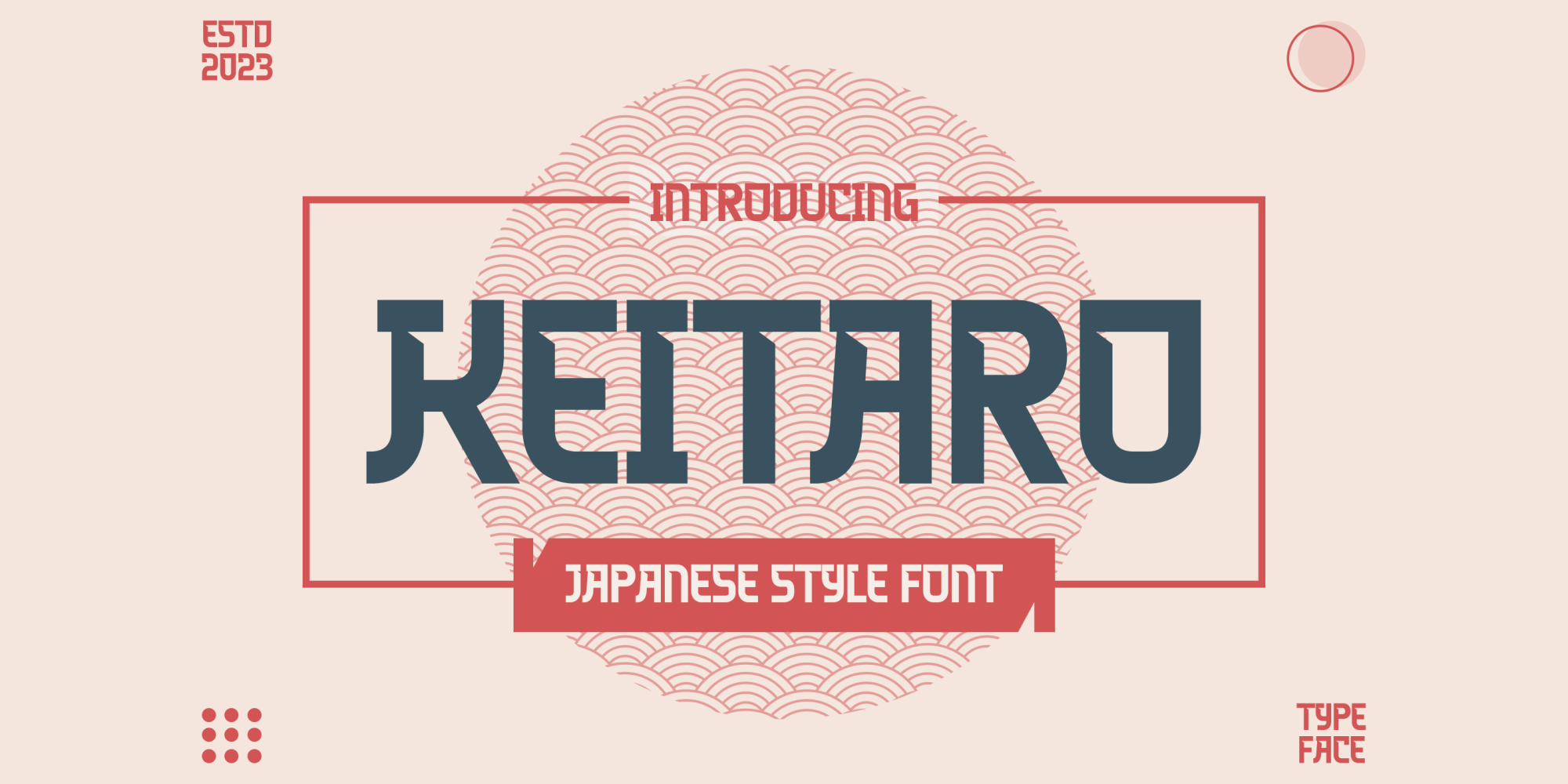
Keitaro Font is perfect for Japanese restaurant branding, anime convention graphics, martial arts academy signage, zen meditation centers, traditional tea ceremony materials, sushi bar menus, cultural exchange programs, manga publishing projects, Asian fusion cuisine marketing, and any harmonious project that celebrates the elegant balance and timeless wisdom of Japanese aesthetic philosophy and cultural tradition.
What makes Keitaro Font exciting is its serene balance that captures the refined elegance of Japanese design principles and the mindful precision of traditional Japanese craftsmanship. This typeface embodies the essence of Japanese aesthetics with clean letterforms that suggest the careful brushstrokes of calligraphy and the peaceful harmony found in zen gardens. The font's balanced character makes it perfect for brands and projects that want to communicate mindfulness, quality, and the sophisticated simplicity that defines Japanese cultural excellence.
The Keitaro Font family includes multiple weights and stylistic variations, featuring light, regular, and bold versions along with decorative elements and alternate characters inspired by Japanese calligraphy and traditional design motifs. This comprehensive collection allows designers to create culturally respectful typography that maintains the font's signature harmonious character while providing flexibility for various Japanese-inspired and mindful design applications.
When exploring authentic Japanese-inspired typography, Keitaro Font Free Download offers designers an exceptional opportunity to work with a typeface that genuinely captures the spirit of Japanese aesthetic philosophy and cultural refinement. This font demonstrates innovative design thinking by incorporating the principles of balance and simplicity that define both traditional Japanese design and the contemporary appreciation for mindful living and quality craftsmanship.
Professional designers appreciate Keitaro Font for its ability to instantly communicate cultural sophistication and mindful quality across various Japanese and wellness-focused platforms. The font's harmonious character makes it particularly effective for Japanese restaurants, wellness brands, and cultural organizations seeking to establish authentic connections with audiences who appreciate Japanese culture and mindful lifestyle choices.
The timeless appeal of Keitaro Font lies in its perfect representation of Japanese aesthetic principles and mindful simplicity that continues to influence contemporary design and lifestyle trends worldwide. This typeface serves as a bridge between traditional Japanese culture and modern appreciation for balance, quality, and mindful living.
For creative professionals working with Japanese-inspired and wellness brands, Keitaro Font represents the ultimate typography solution that brings authentic Japanese elegance and mindful harmony to any application, ensuring designs reflect the sophisticated balance and cultural refinement that define the most respected aspects of Japanese aesthetic tradition.